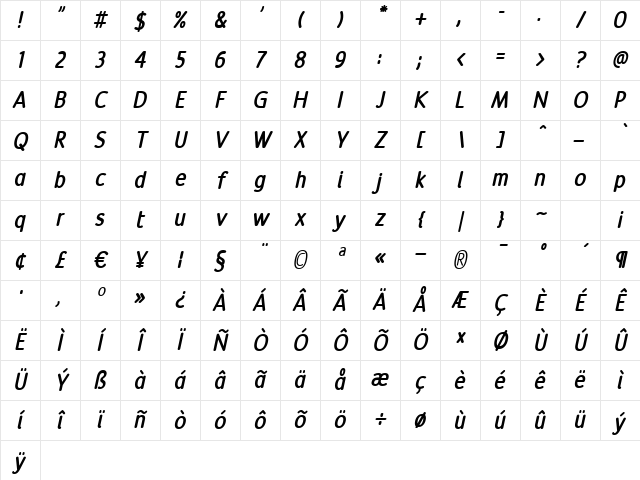
Revalo ModernBold Italic Regular
Design Context for Revalo ModernBold Italic
Revalo ModernBold Italic is a composed and adaptable typeface that performs quietly and consistently across a wide range of design contexts. The slanted form adds forward momentum and visual energy. Its bold stroke weight gives it real presence on the page.
Pro Tip: Use Revalo ModernBold Italic for emphasis, pull quotes, and subheadings where its slanted energy can add rhythm to the layout.